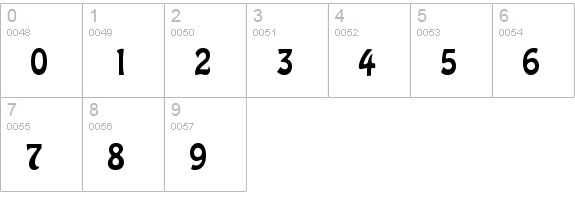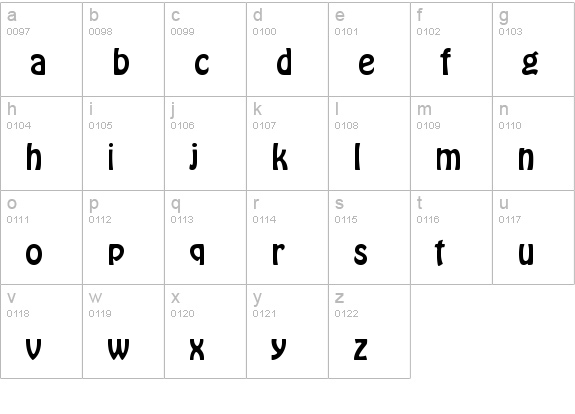
HoboEF Font Details
HoboEF is a versatile and eye-catching font that exudes a sense of whimsy and creativity. With its unique blend of rounded edges and bold lines, this typeface is perfect for adding a touch of playfulness to your designs. Whether you're creating posters, logos, or social media graphics, HoboEF is sure to make a statement. What's even better is that HoboEF is available for free download at FontsMarket.com. This means that you can easily incorporate this charming font into your projects without breaking the bank. Don't miss out on the opportunity to add a touch of fun to your designs with the HoboEF font. Download it today and let your creativity flow!